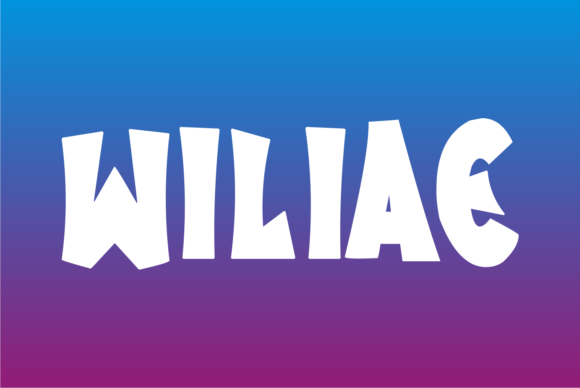
Behold Wiliae, a breathtaking display font designed to make your creations shine! Enter a world where typography meets art, where each letter is a brushstroke of creativity, crafted by the visionary minds at MRXTYPE. Let your words dance with boldness and style, captivating the hearts of your audience.
Wiliae is not just a font; it's a masterpiece. Its thick, confident strokes leave an indelible mark on the digital canvas, commanding attention and demanding admiration. In a sea of mundane fonts, Wiliae stands tall, a beacon of originality, ready to transform your projects into visual symphonies.
Unleash your imagination and watch as Wiliae brings life to your designs. Whether you're a seasoned designer or just starting out, this font is your perfect companion. Its versatility knows no bounds, from eye-catching social media posts to striking logos, from captivating posters to engaging websites. Wiliae is the key to unlocking your creative potential.
With Wiliae at your fingertips, you'll discover a world of endless possibilities. Create branding that radiates confidence, craft invitations that exude elegance, or design posters that ignite passion. Every word you type will be a stroke of genius, leaving a lasting impression on all who encounter it.
But Wiliae's magic extends beyond its visual appeal. This font has a soul, a character that resonates with the modern audience. It speaks to their desire for individuality, their craving for authenticity. Wiliae is more than just a font; it's a statement, a declaration of your unique style.
If you seek a font that will elevate your creations, look no further. Wiliae is the answer. Its bold presence will captivate your audience, leaving them in awe of your design prowess. Dare to stand out, dare to be different, and let Wiliae be your guiding light.